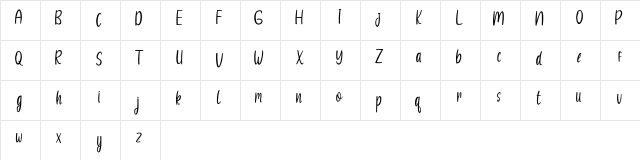
Sunshine Memories Regular
Design Context for Sunshine Memories Typeface
Sunshine Memories is a composed and adaptable typeface that performs quietly and consistently across a wide range of design contexts.
Pro Tip: Use Sunshine Memories in both headline and body roles to test its range before committing to a single application.